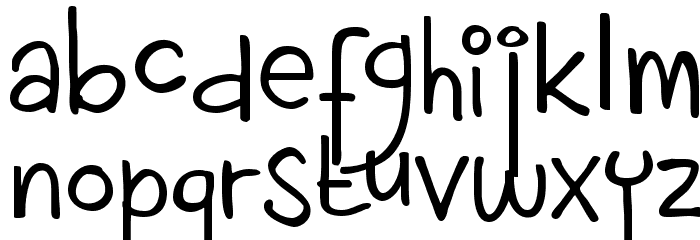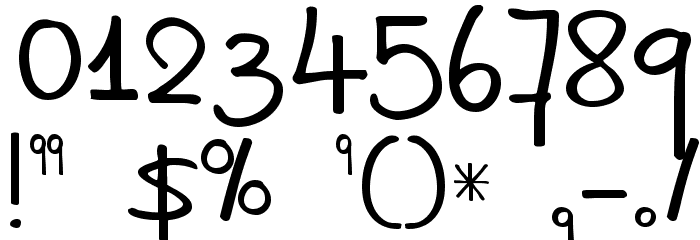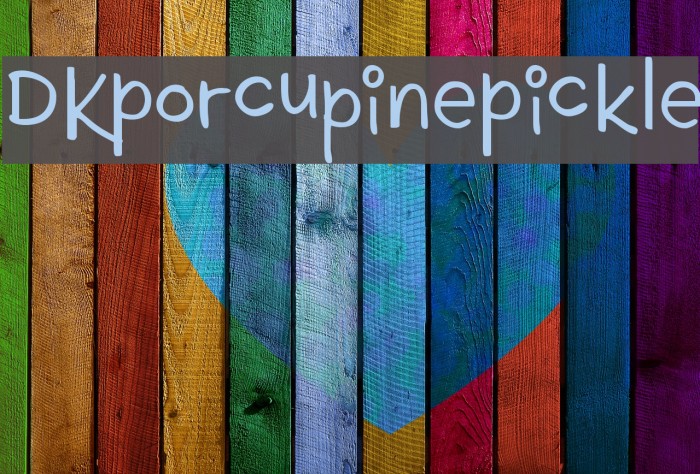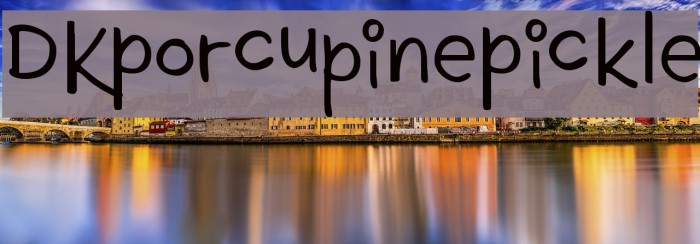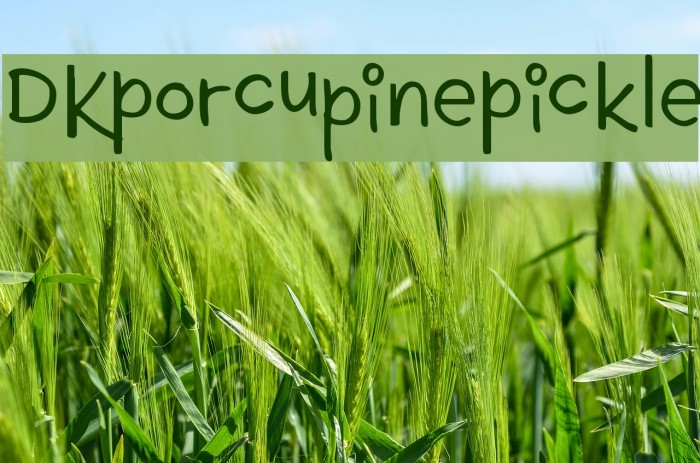
DKPorcupinePickle Font
This playful and quirky font features a handwritten style with a whimsical touch. The characters are slightly irregular, giving it a casual and friendly appearance. The uppercase letters are bold and rounded, while the lowercase letters maintain a consistent flow with unique loops and curves. Numbers and special characters follow the same playful aesthetic, making it versatile for creative projects. The font's informal style makes it perfect for fun and engaging designs.
A playful, handwritten font with a whimsical and casual style.
- Proposed Projects: Ideal for children's books, greeting cards, playful branding, and informal invitations.
- Category: Handwritten
- Overall Style: Playful
- Use Case: Headlines, Logos, Informal Text